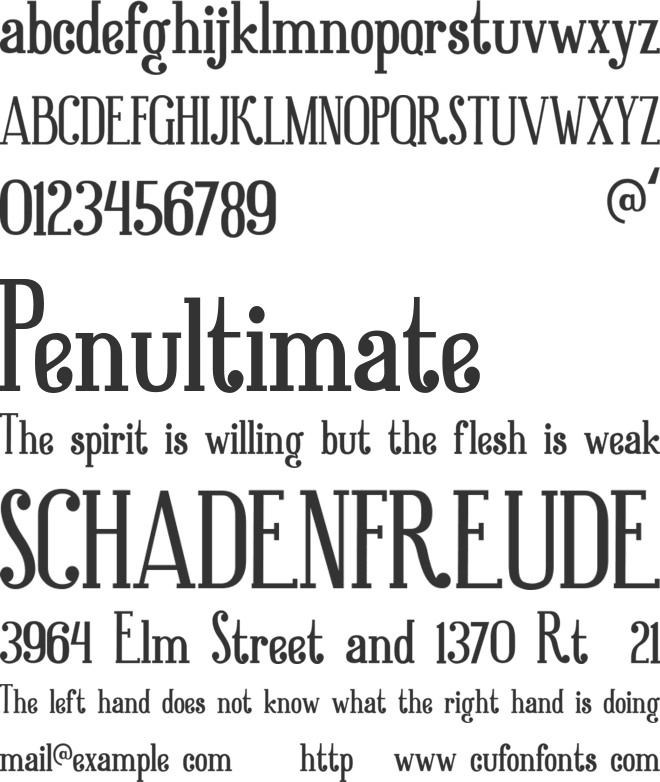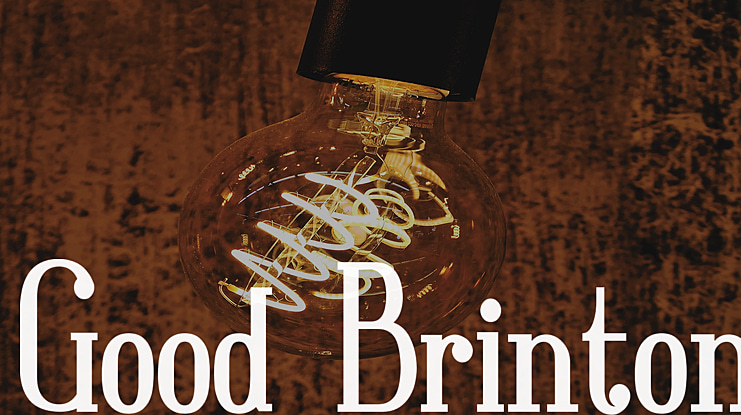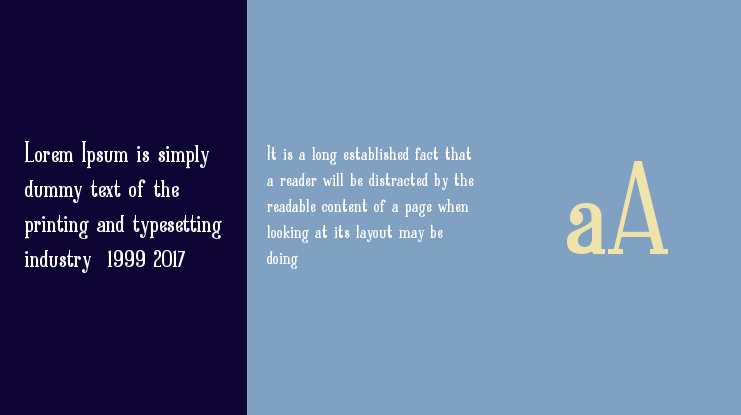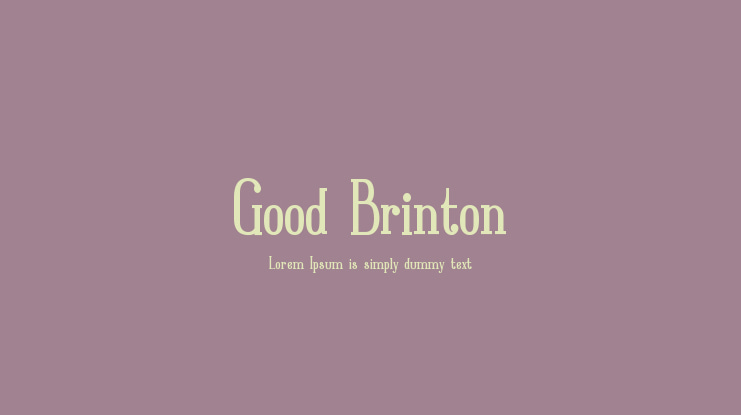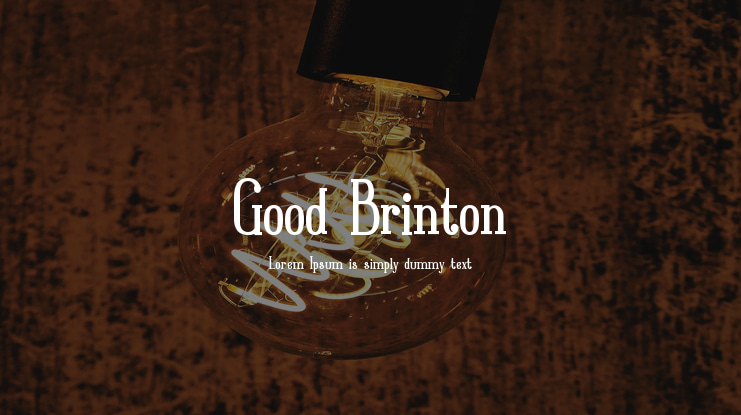
Good Brinton Font
DETAILS Introducing, brand new slab serif, GOOD BRINTON- an beautiful slab serif with a bunch of alternates!
GOOD BRINTON is a classic and elegant slab serif with a bunch of alternates up to 50 style for each characters that will make your greeting card, logo, craft even more stunning and stand out! Good Brington also support Multi Language.